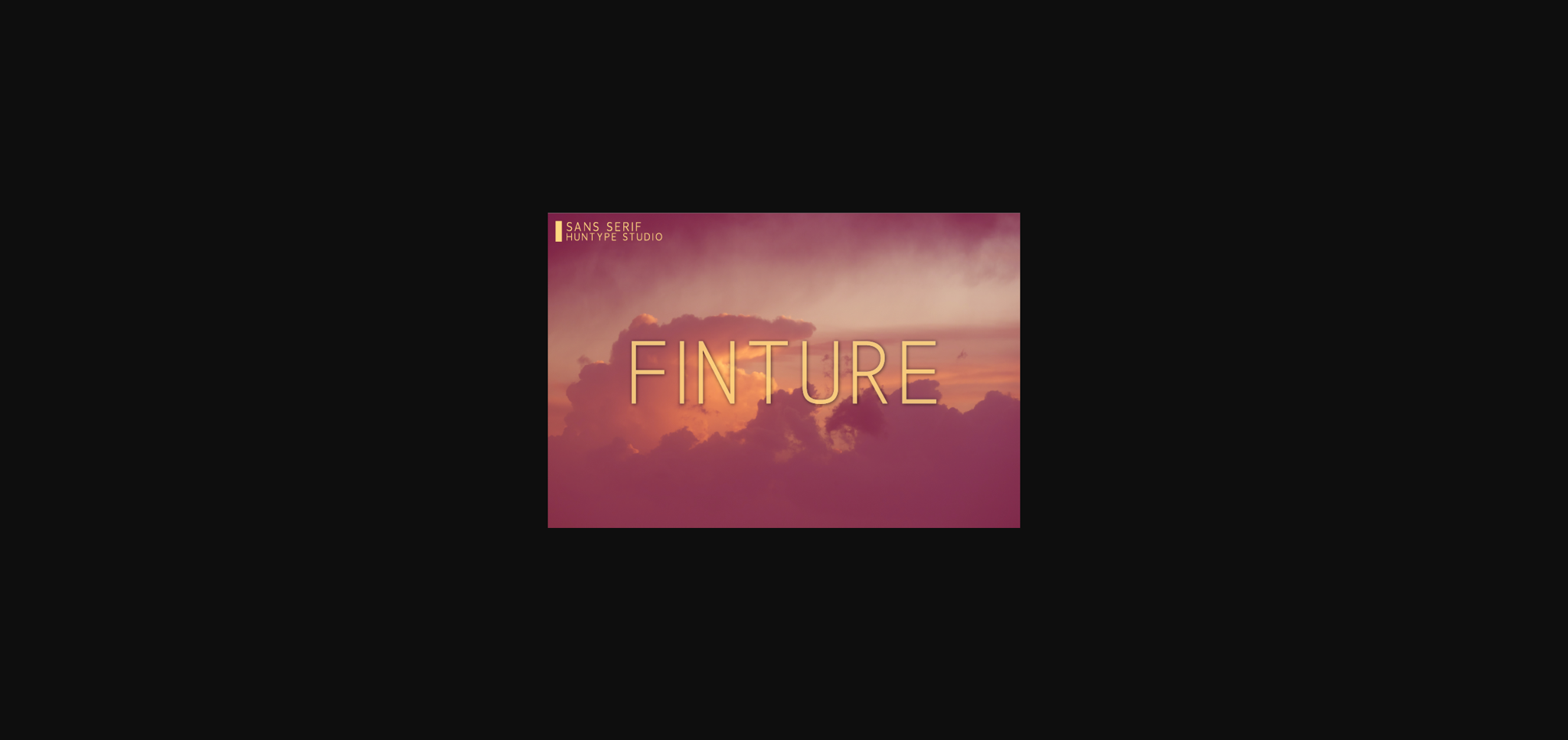
Finture Font
About Finture Font
Finture is a modern and clean sans serif font that is versatile and looks great in just about any context. With smooth and clean lines, and just a touch of contrast, Finture works beautifully for logos, branding, web headings and much more.